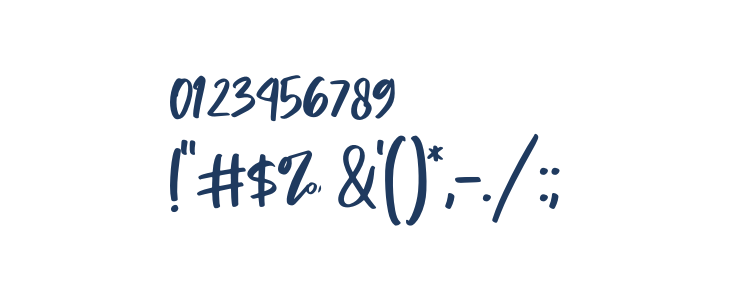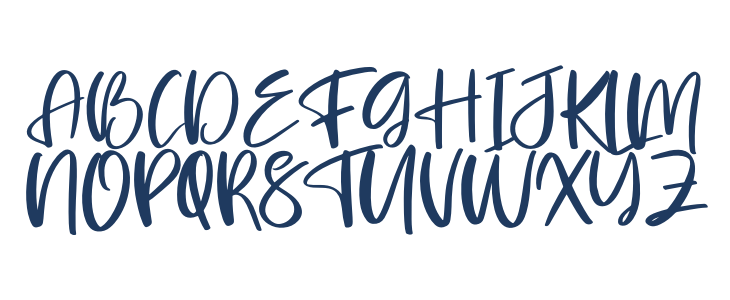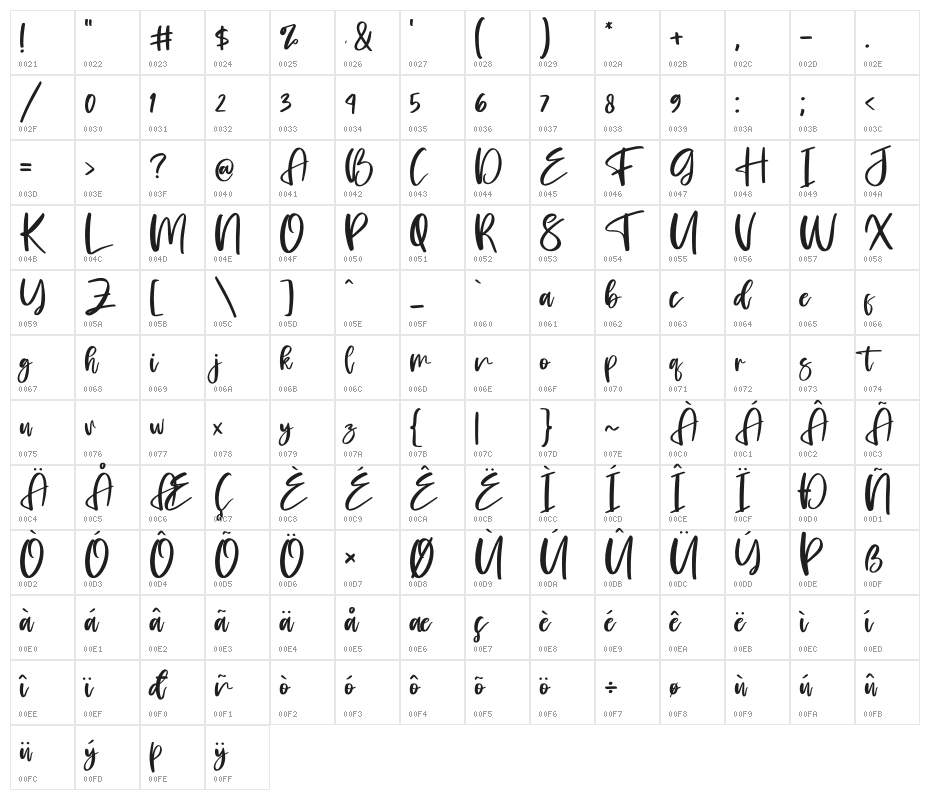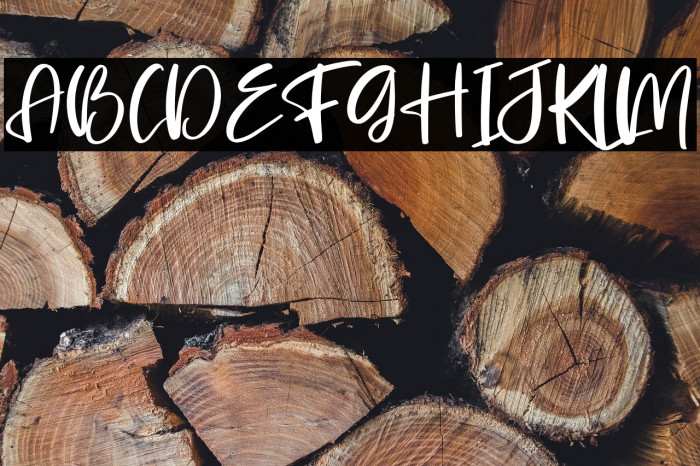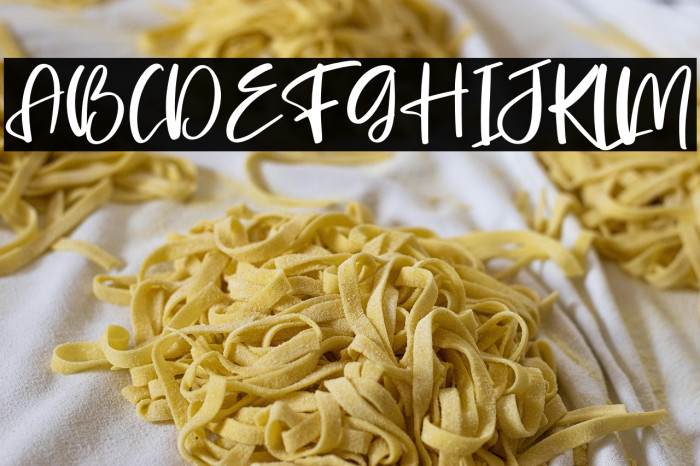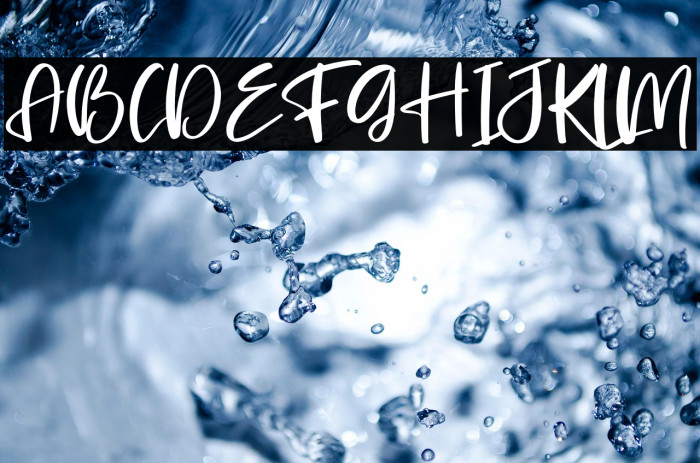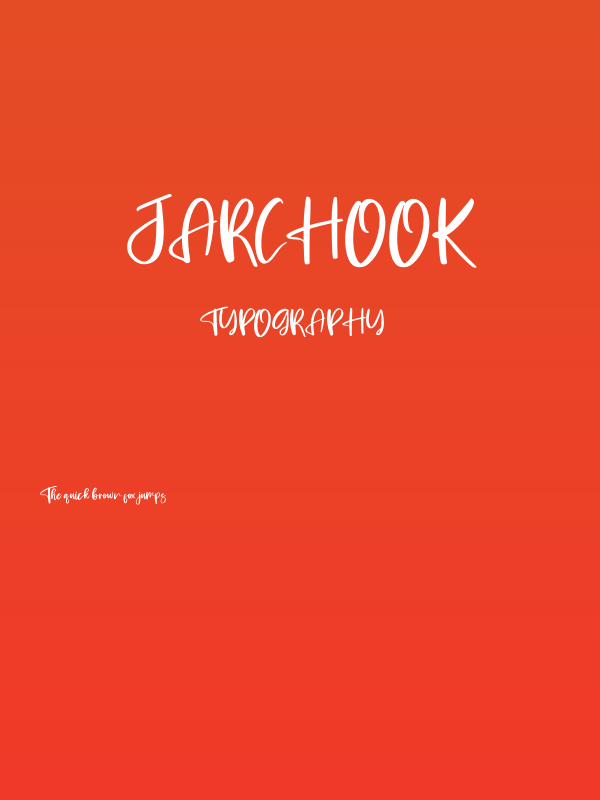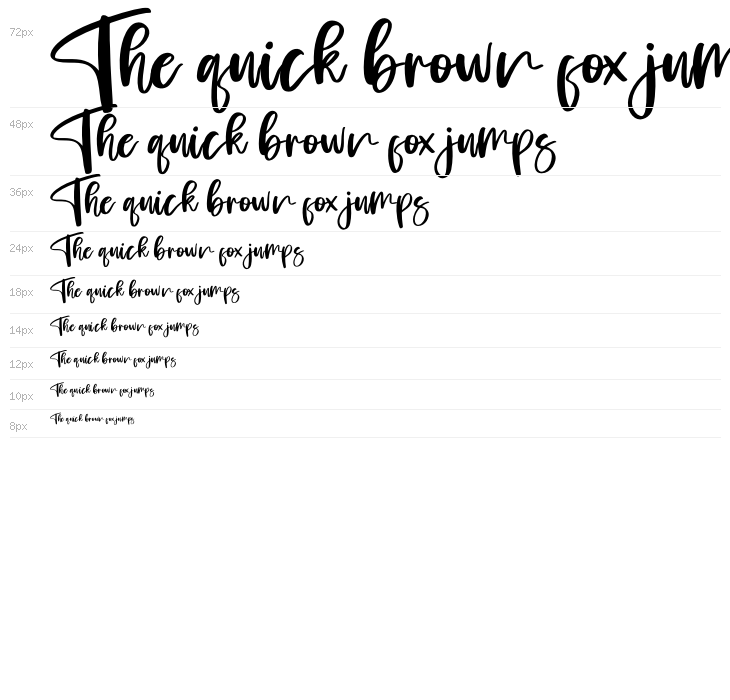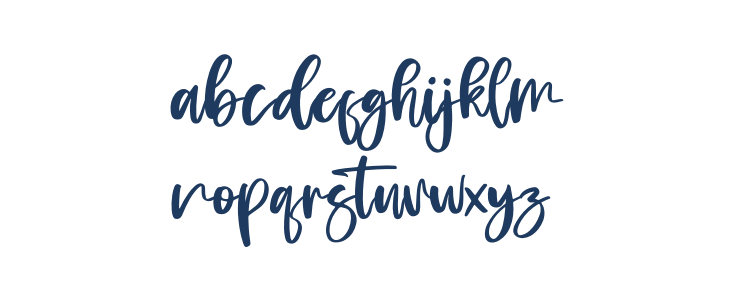
Jarchook Font
Jarchook Description
A bold, casual script font with a hand-lettered appearance, featuring smooth, flowing strokes and a slightly irregular baseline for a natural, dynamic feel.
| Overall Style | Casual, Handwritten |
| Use Case | Logos, Headlines, Invitations, Social media posts |
| Proposed Projects | Branding, invitations, social media graphics, packaging, and greeting cards. |